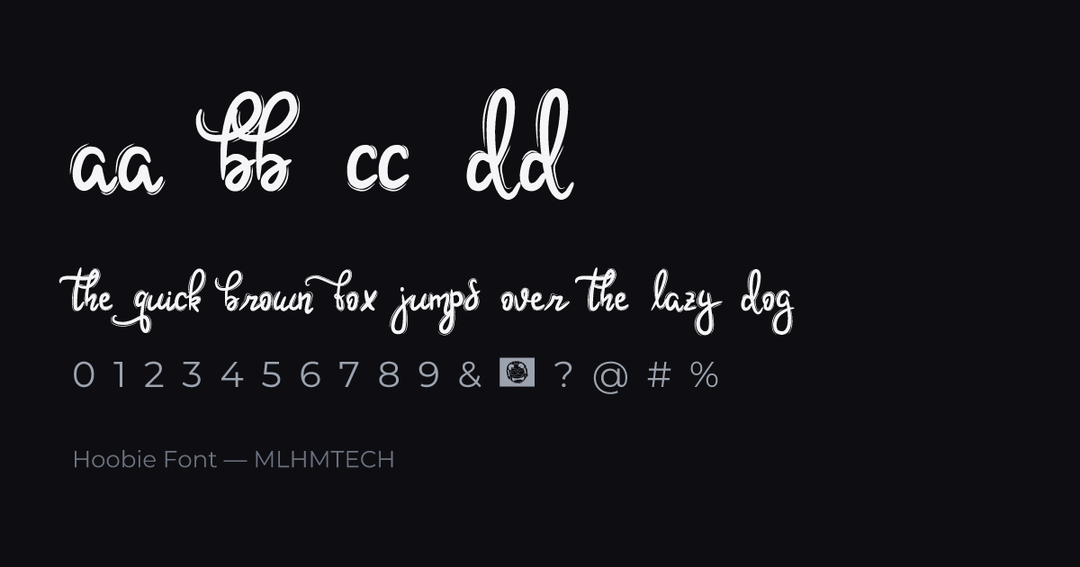
Hoobie Font
Hoobie is a playful handwritten font in OTF format, ideal for adding a personal and creative touch to your projects.
Hoobie is a charming handwritten font that brings a sense of playfulness and authenticity to any design. Its irregular strokes and friendly curves make it perfect for titles, logos, invitations, and social media graphics.
Whether you're a professional designer or a hobbyist, Hoobie will help you stand out from the crowd with its unique, handcrafted feel.